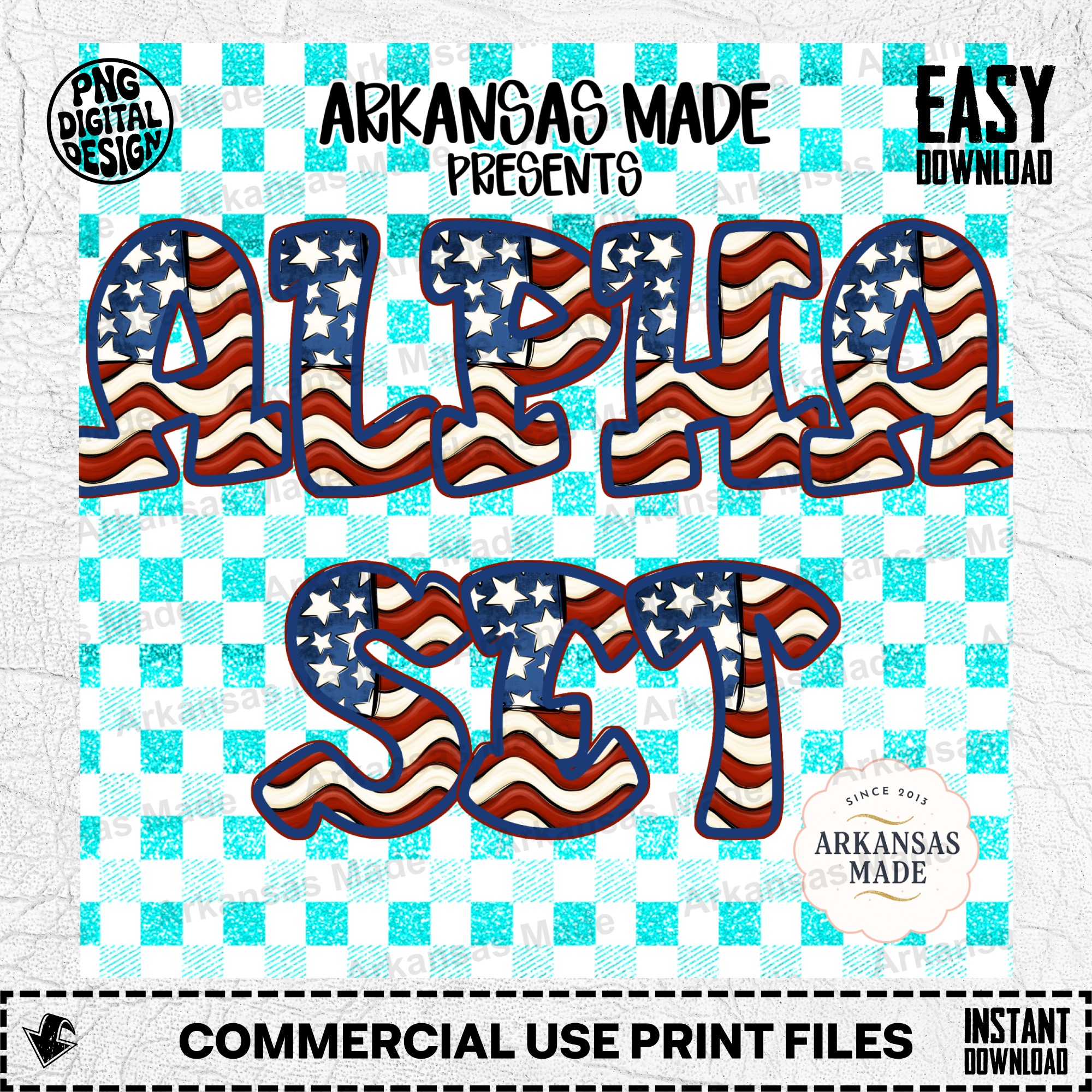
Patriotic Alpha Set PNG, American Flag Letters Digital Download, USA Red White Blue Sublimation Font, Fourth of July Clipart
Celebrate American spirit with our Patriotic Alpha Set PNG, featuring distressed American flag letters. Perfect digital download for USA-themed crafts. This versatile red, white, and blue alphabet is ideal for crafters, small businesses, and anyone creating for Independence Day, Memorial Day, or simply showing their American pride. Use these vibrant Americana graphics for custom t-shirts, tumblers, party decor, or unique gifts that honor the USA.